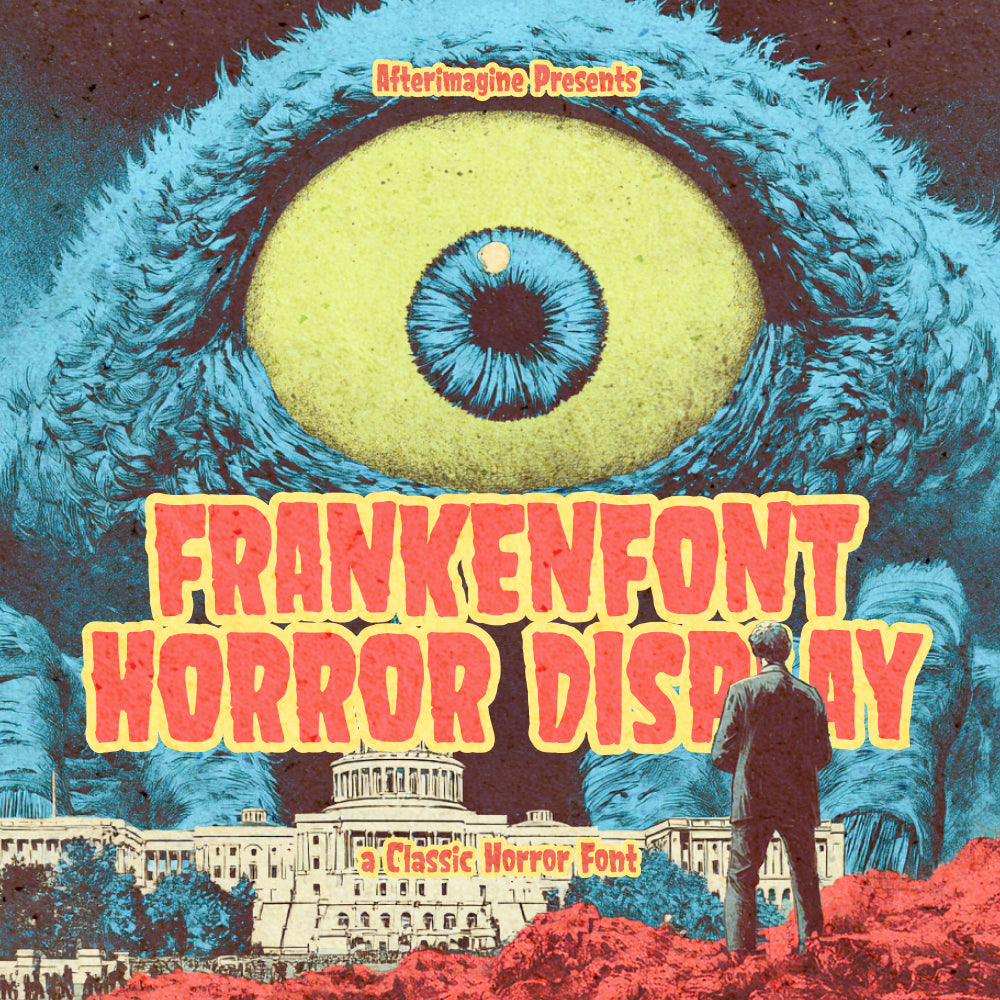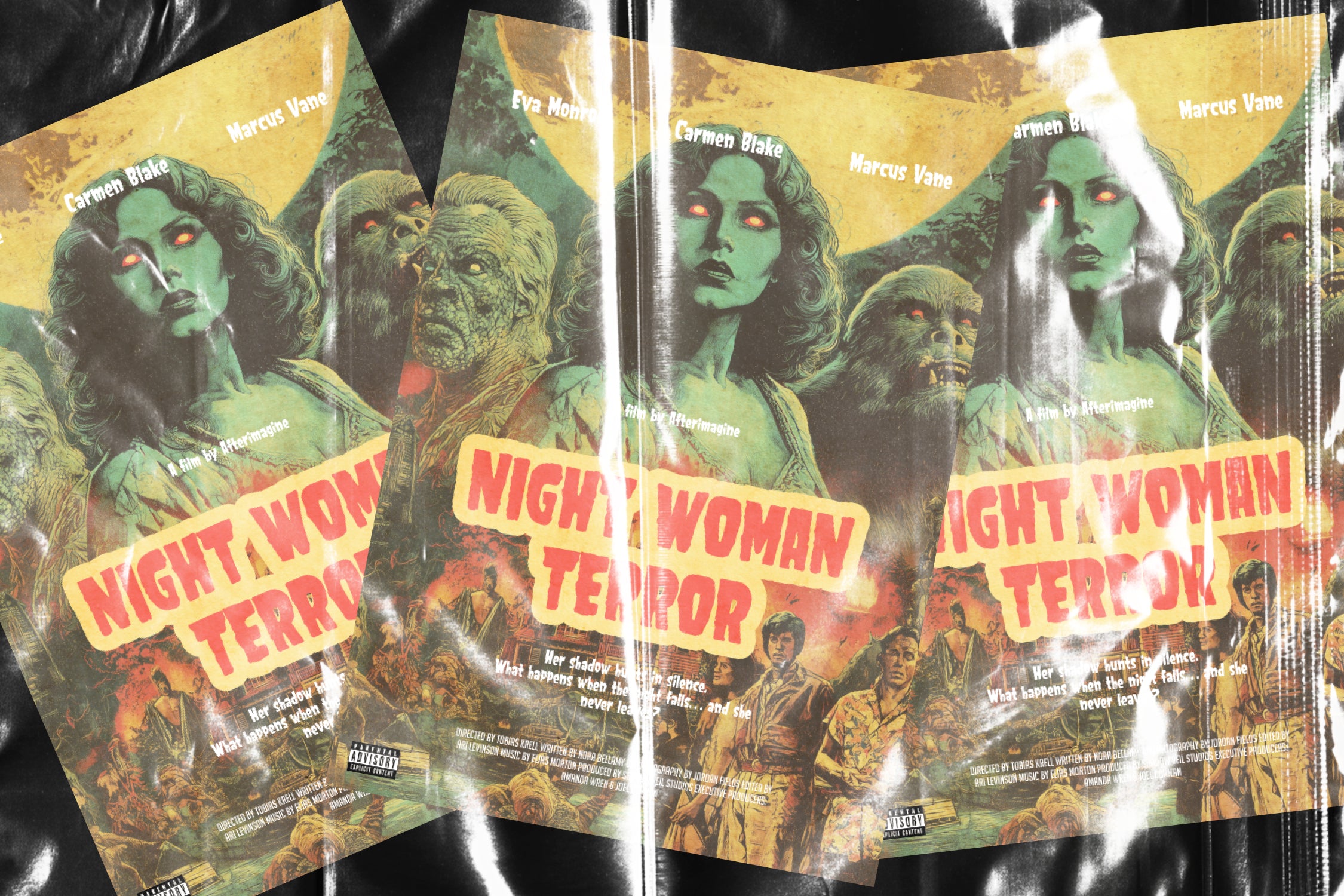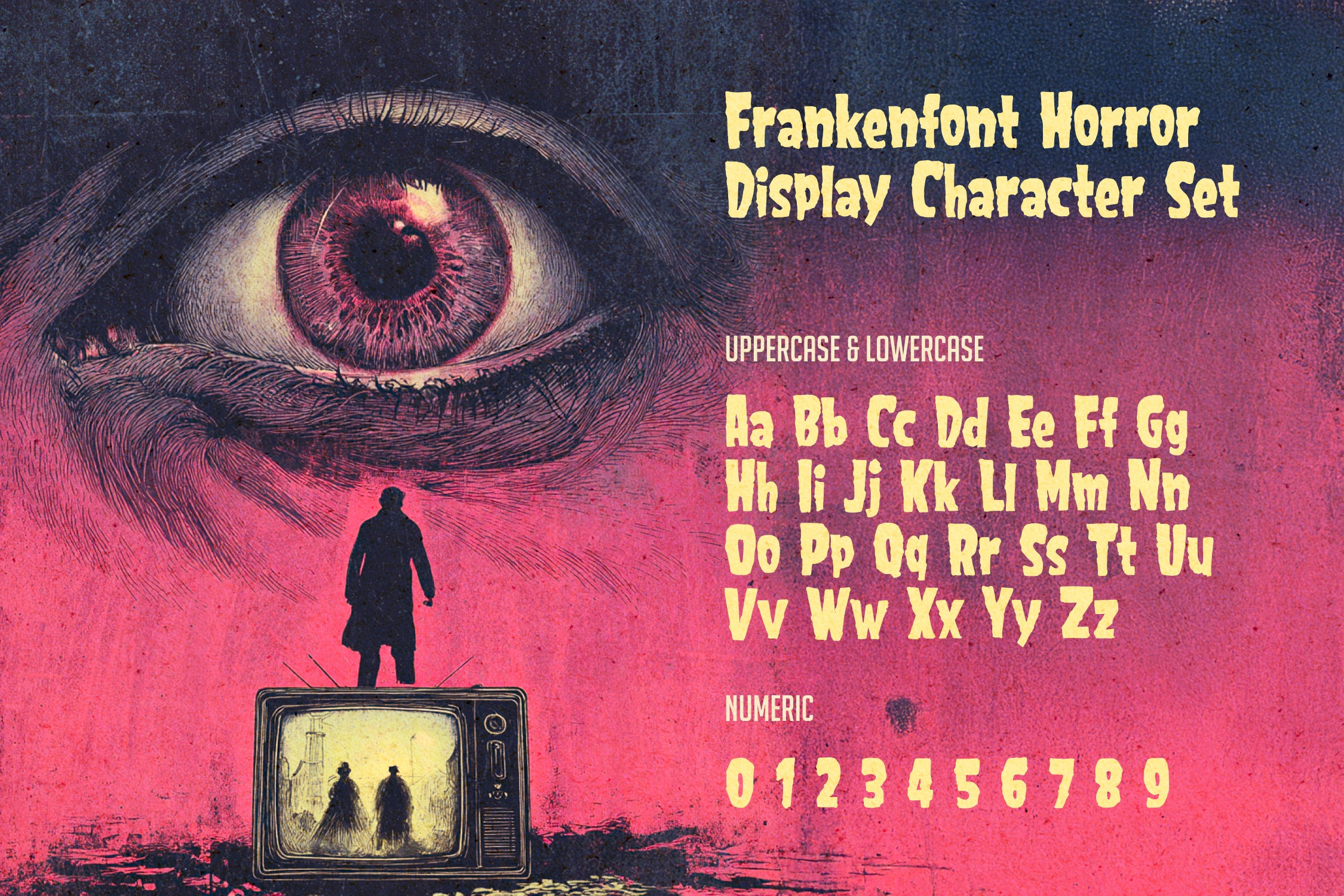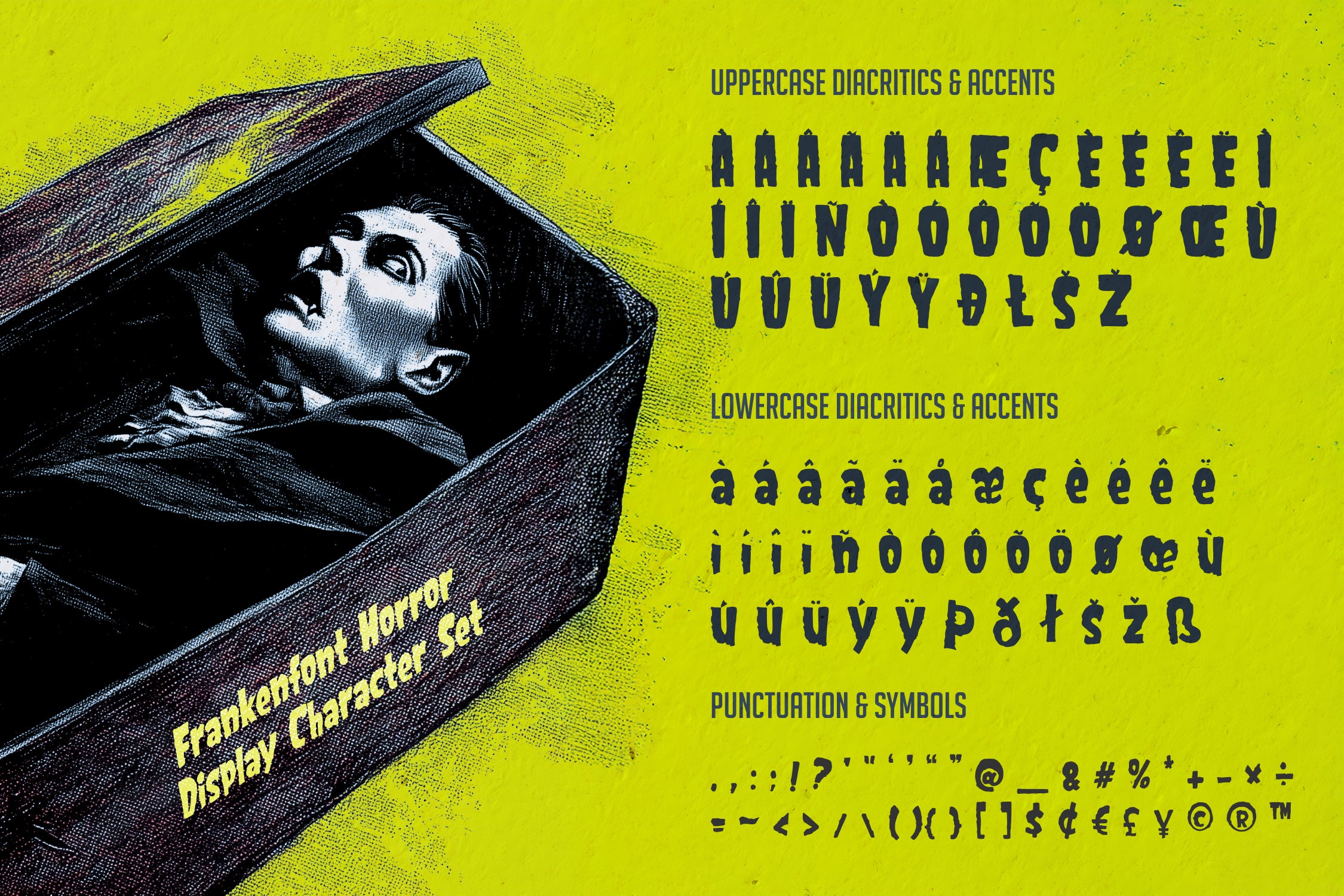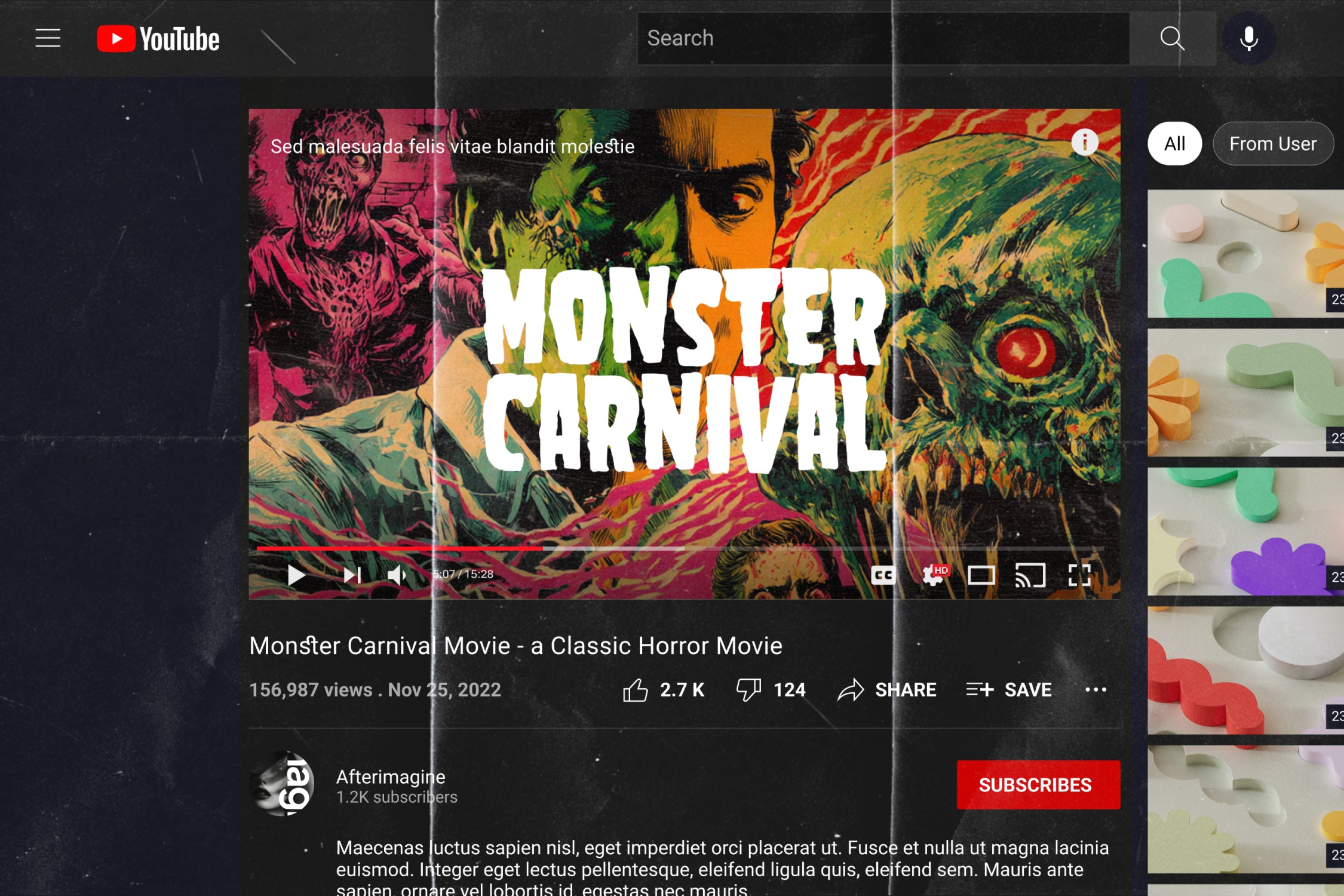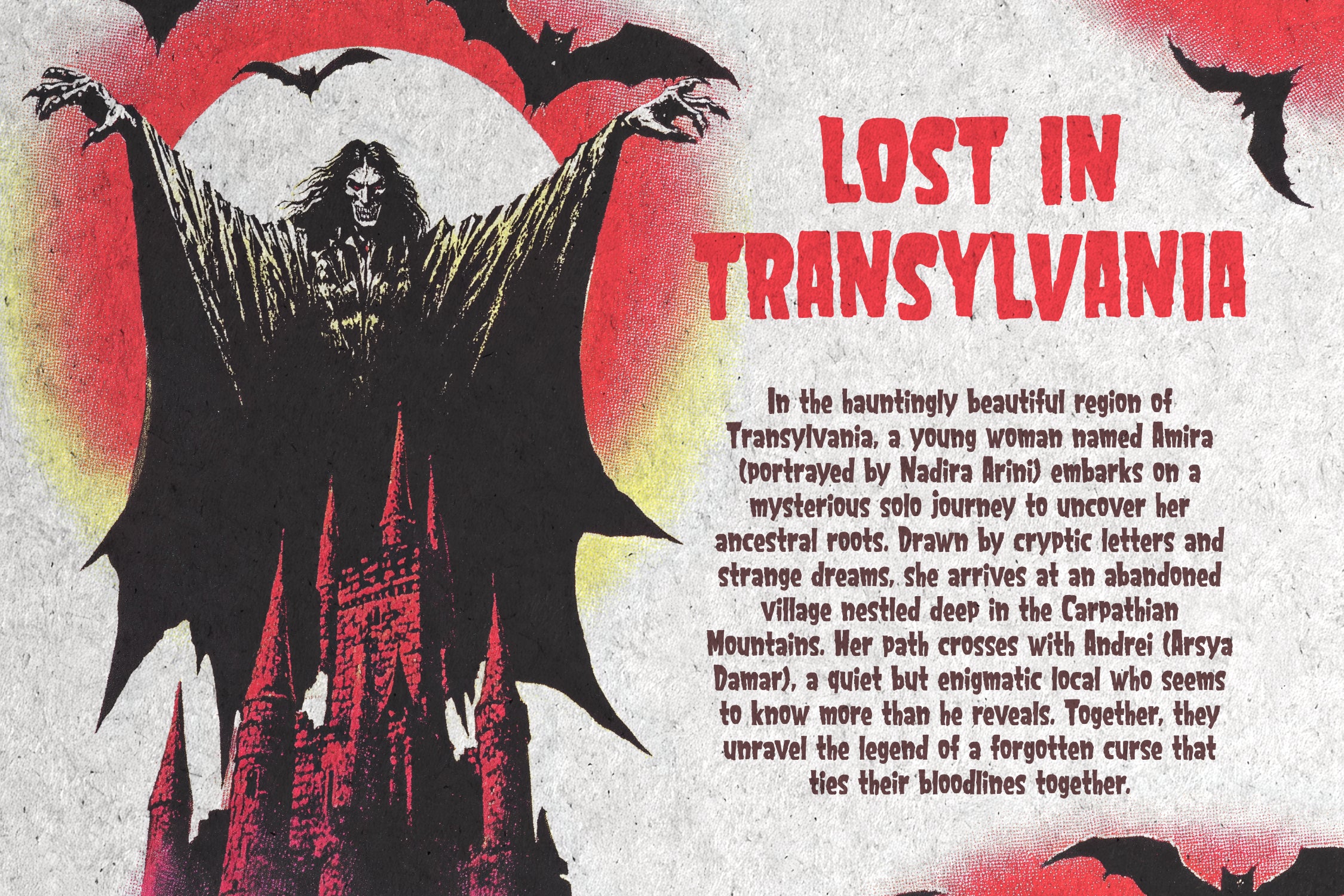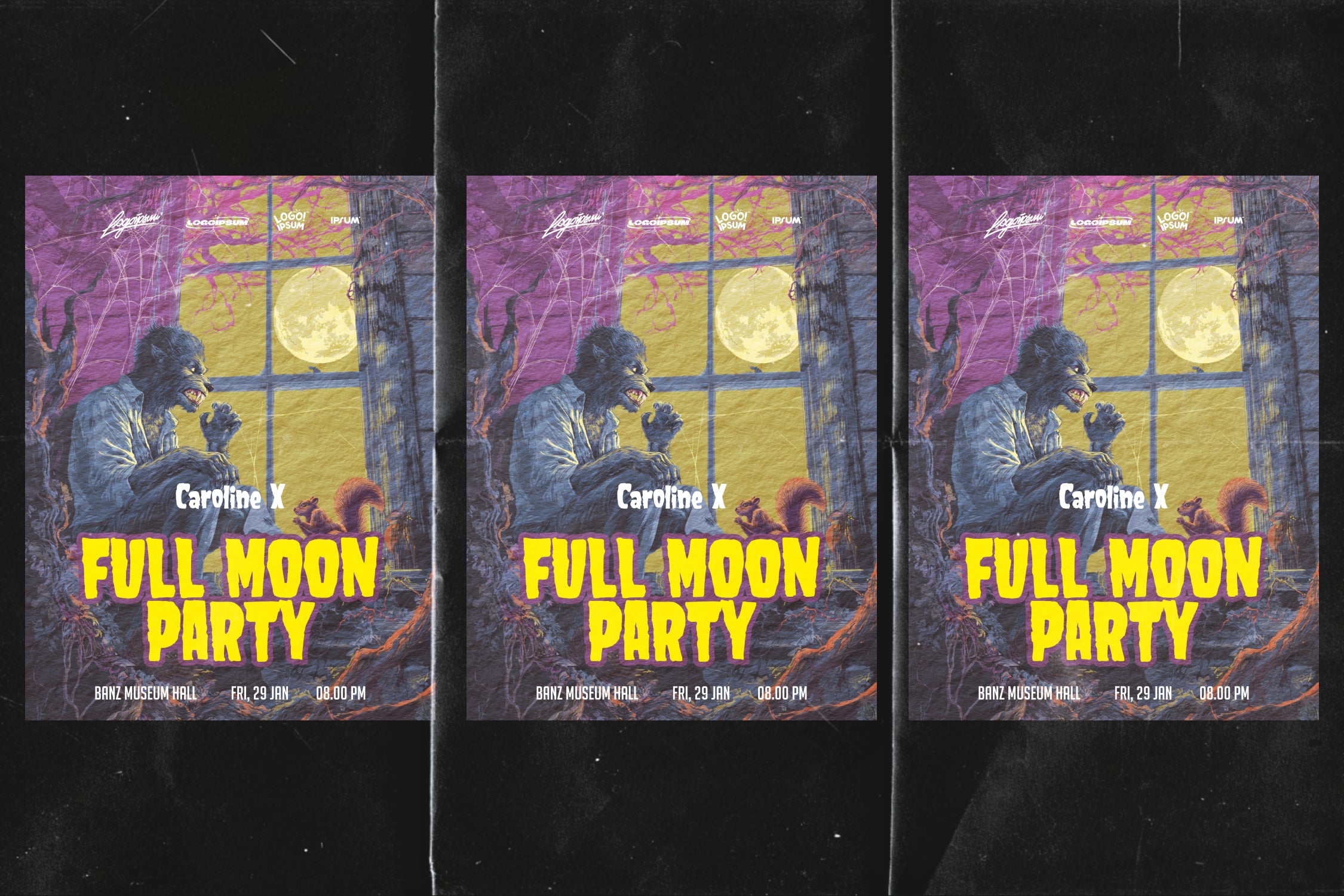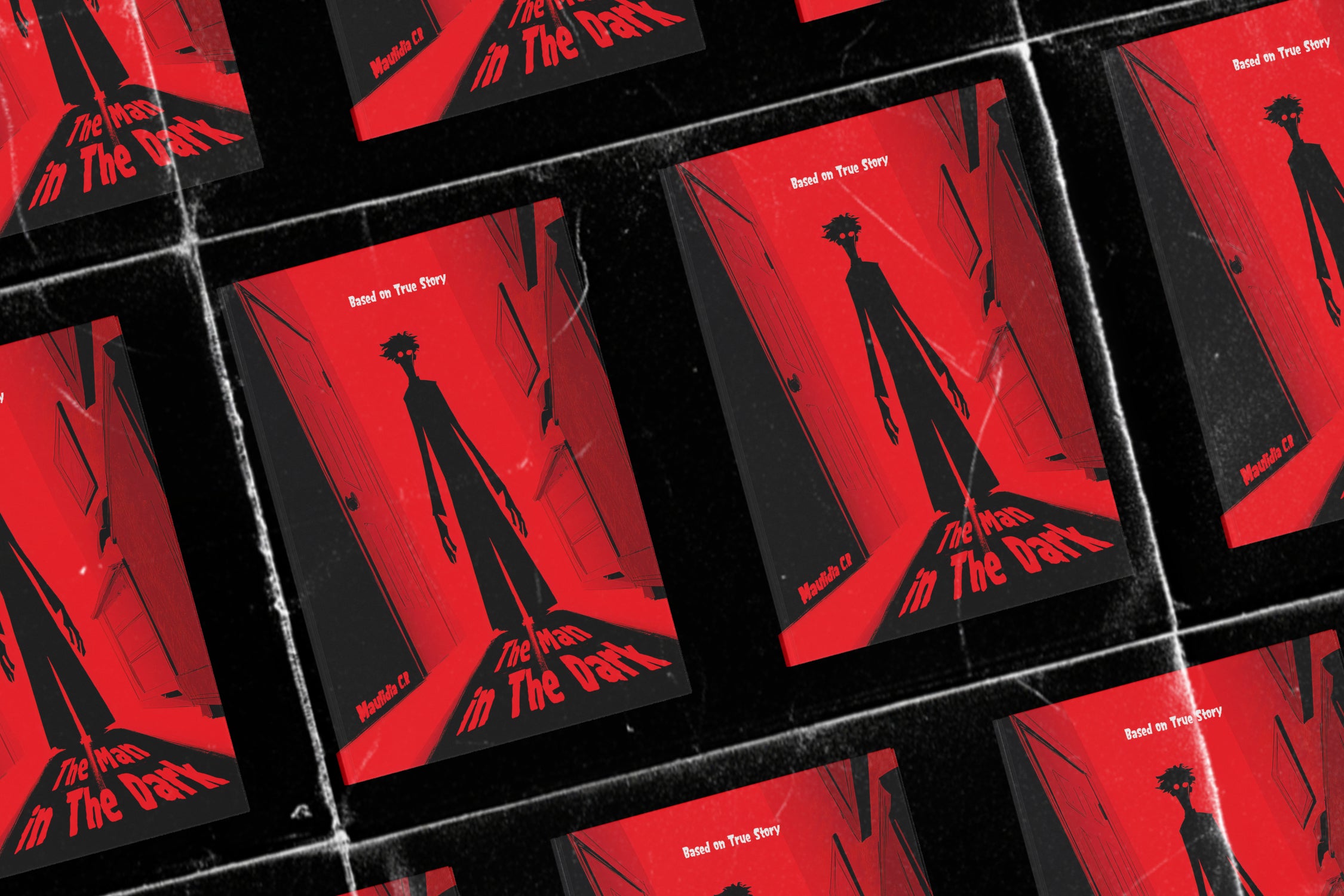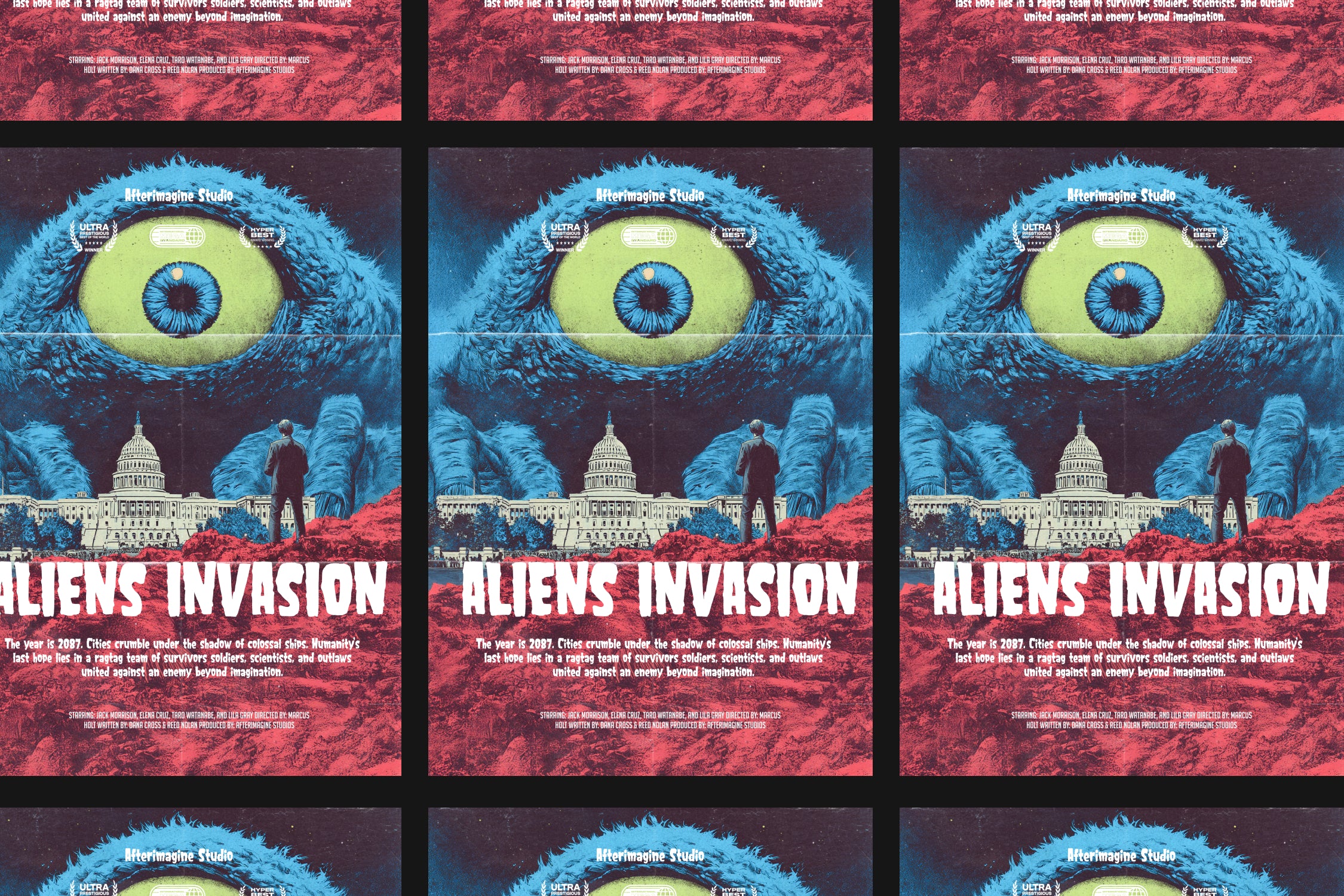
Frankenfont Classic Horror Display Font
Frankenfont Classic Horror Display Font is a bold typeface characterized by jagged edges and spooky curves, inspired by classic monster movies. It includes OTF, TTF, WOFF2, WOFF, and EOT formats, featuring uppercase and lowercase letters, numbers, punctuation, and multilingual support for diverse design applications.